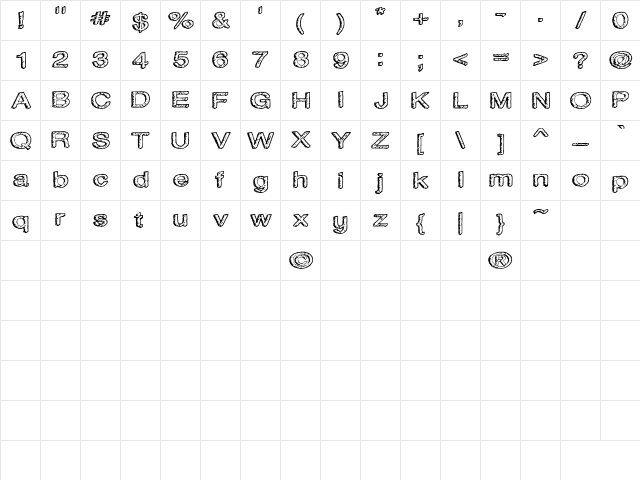
Water on the Oil Regular
Design Context for Water on the Oil Typeface
Water on the Oil is a composed and adaptable typeface that performs quietly and consistently across a wide range of design contexts.